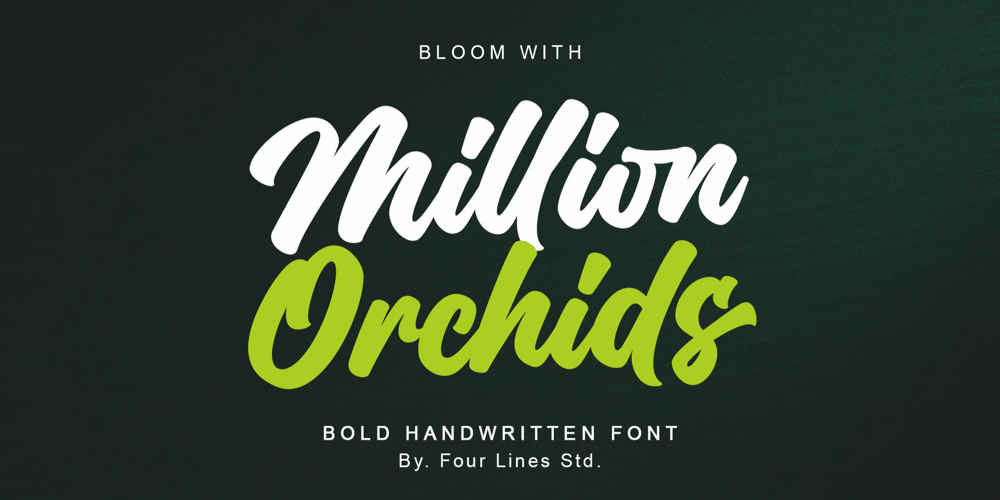
Million Orcids Font Family was designed by Zain Fahroni and published by Four Lines Std. Million Orcids contains 1 styles and family package options. Million Orchids Font: Where Script Meets Blooming Brilliance! Get ready to unleash your creativity and watch your designs blossom with this delightful script font. It’s like having a million orchids at your fingertips, adding a touch of elegance and charm to every project. Let your imagination take root and let the million orchids font bring your designs to life!